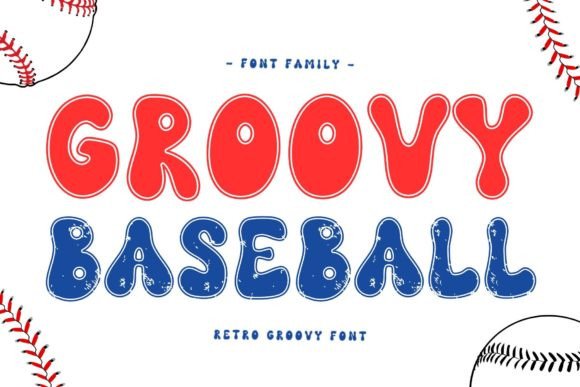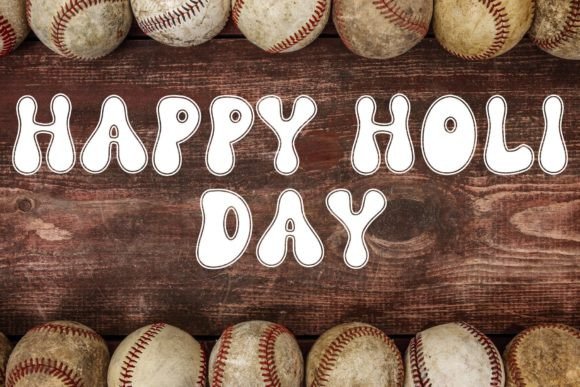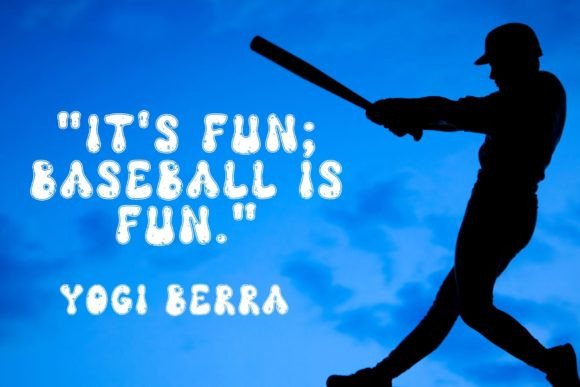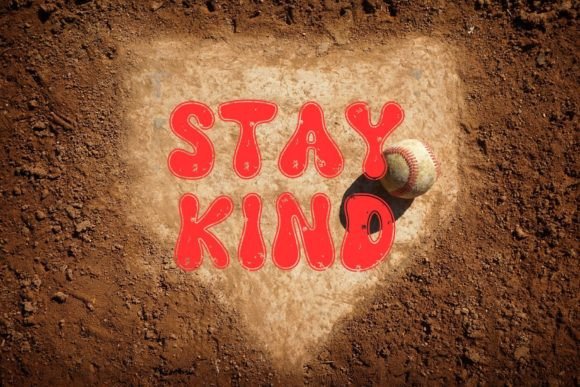
Groovy Baseball Font
About the Groovy Baseball Font
Unleash your creativity with Groovy Baseball Font, a versatile font perfect for a wide range of applications. Groovy Baseball is a cool retro groovy decorative font. It embodies playfulness and authenticity and is the perfect choice for all your favorite projects such as blog posts, logos, branding, ads, invitations, greeting cards, planners, photo albums, decorations, and more. Add it to any of your designs, and enjoy the results!
Groovy Baseball’s playful, retro style shines brightest in headlines, short text blocks, and logos where its quirky charm can be fully appreciated. It’s ideal for projects with a vintage or Americana feel, such as branding for a baseball team, a retro diner, or a summer festival. Avoid using it for body text or long paragraphs; its decorative nature makes it less legible for extended reading.
Pairing Groovy Baseball effectively requires a contrast in style. A clean sans-serif like Open Sans or a more modern geometric font like Montserrat would provide a balanced, contemporary feel, grounding the playful energy. For a more vintage aesthetic, consider pairing it with a classic serif typeface such as Garamond or Didot.
The font’s overall personality is bold, fun, and nostalgic. Its retro aesthetic lends itself to projects that evoke feelings of carefree summers and classic Americana. Using it sparingly and strategically will maximize its impact.
Groovy Baseball Font Usage Examples
Groovy Baseball Font Example